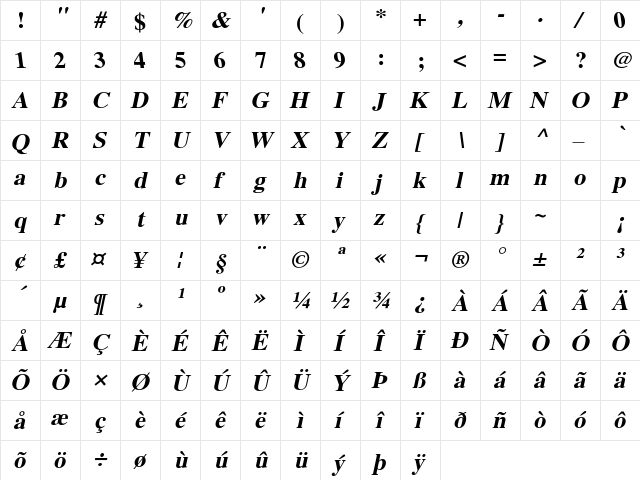
WinSoft Serif Pro Bold Italic Font Preview
Design Context for WinSoft Serif Pro Typeface
WinSoft Serif Pro carries the refined structure of traditional serif typography, with bracketed terminals and considered proportions that communicate credibility and craft. Its italic angle brings a sense of urgency and motion to the letterforms. Its bold stroke weight gives it real presence on the page.